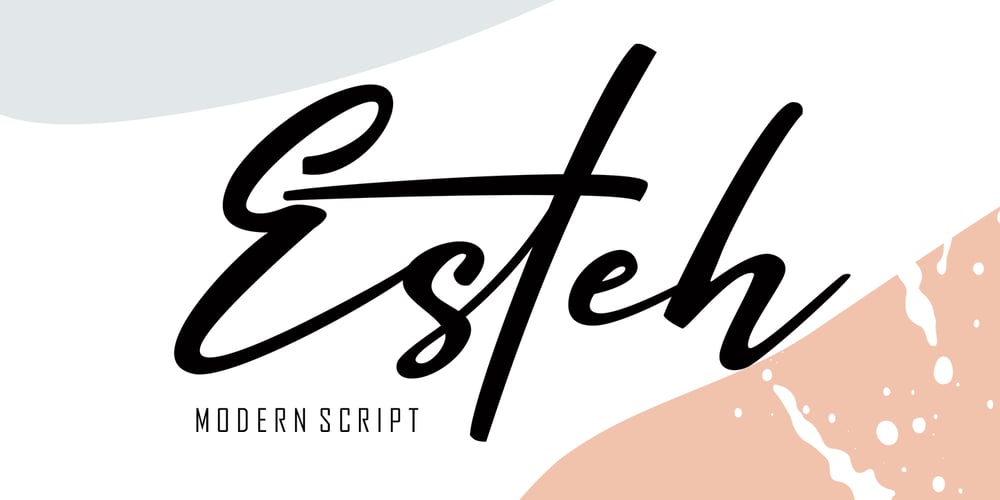
Esteh
Esteh font
Esteh Font Family was designed by Teuku Muslyawan and published by DonyaDesign. Esteh contains 1 styles and family package options. Esteh is a modern script font that includes a full set of upper and lower case letters, as well as alternative lowercase letters, swashes, multi-lingual symbols, numbers, punctuation.Esteh is coded with PUA Unicode, which allows full access to all additional characters without having special design software. Mac users can use Font Book, and Windows to attach your favorite text editor / application.To enable OpenType Stylistic Alternates, you need a program that supports OpenType features such as Adobe Illustrator CS, Adobe Indesign & CorelDraw X6-X7, Microsoft Word 2010 or newer.How to access all alternative characters:https://www.youtube.com/watch?v=Go9vacoYmBwhttps://www.youtube.com/watch?v=XzwjMkbB-wQhttps://www.youtube.com/watch?v=x1A_ilsBsGshttps://www.youtube.com/watch?v=xFlMwARHusY